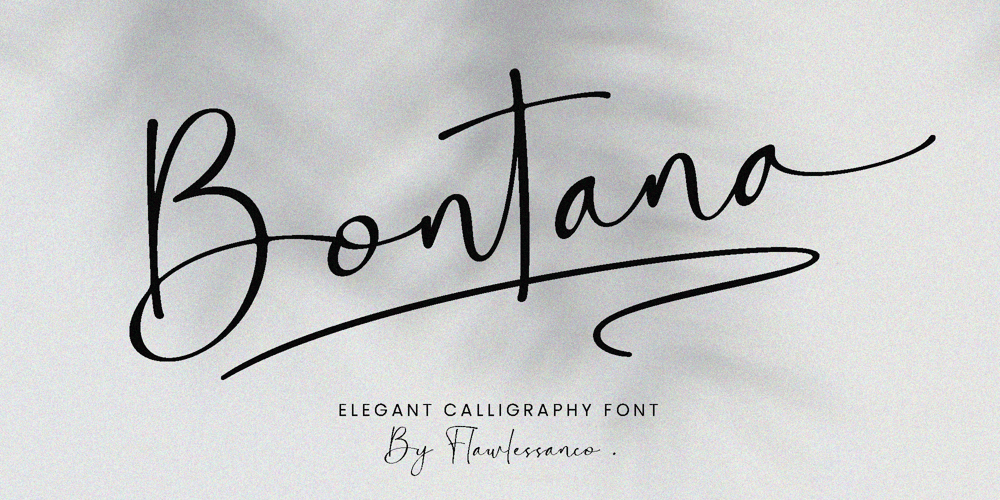
Bontana Font Family was designed by Achmad Yani and published by Flawlessandco. Bontana contains 1 styles and family package options. Introducing “Bontana” – An Elegant Calligraphy Font. Elevate your designs with the timeless beauty of “Bontana,” an exquisite calligraphy script font that embodies elegance and sophistication.There’s some connected letters and some alternates that suitable for any graphic designs such as branding materials, t-shirt, print, business cards, logo, poster, t-shirt, photography, quotes .etcThis font support for some multilingual. Also contains uppercase A-Z and lowercase a-z, alternate character, numbers 0-9, and some punctuation.If you need help, just write me! Thanks so much for checking out my shop!